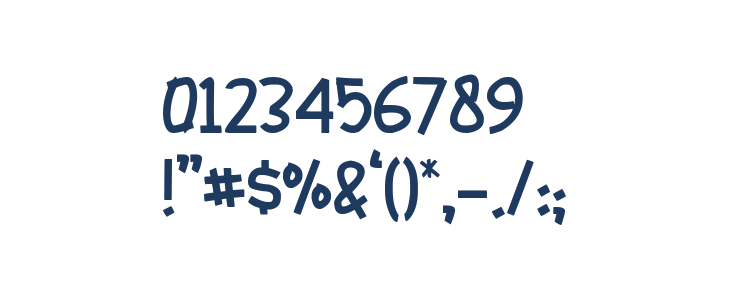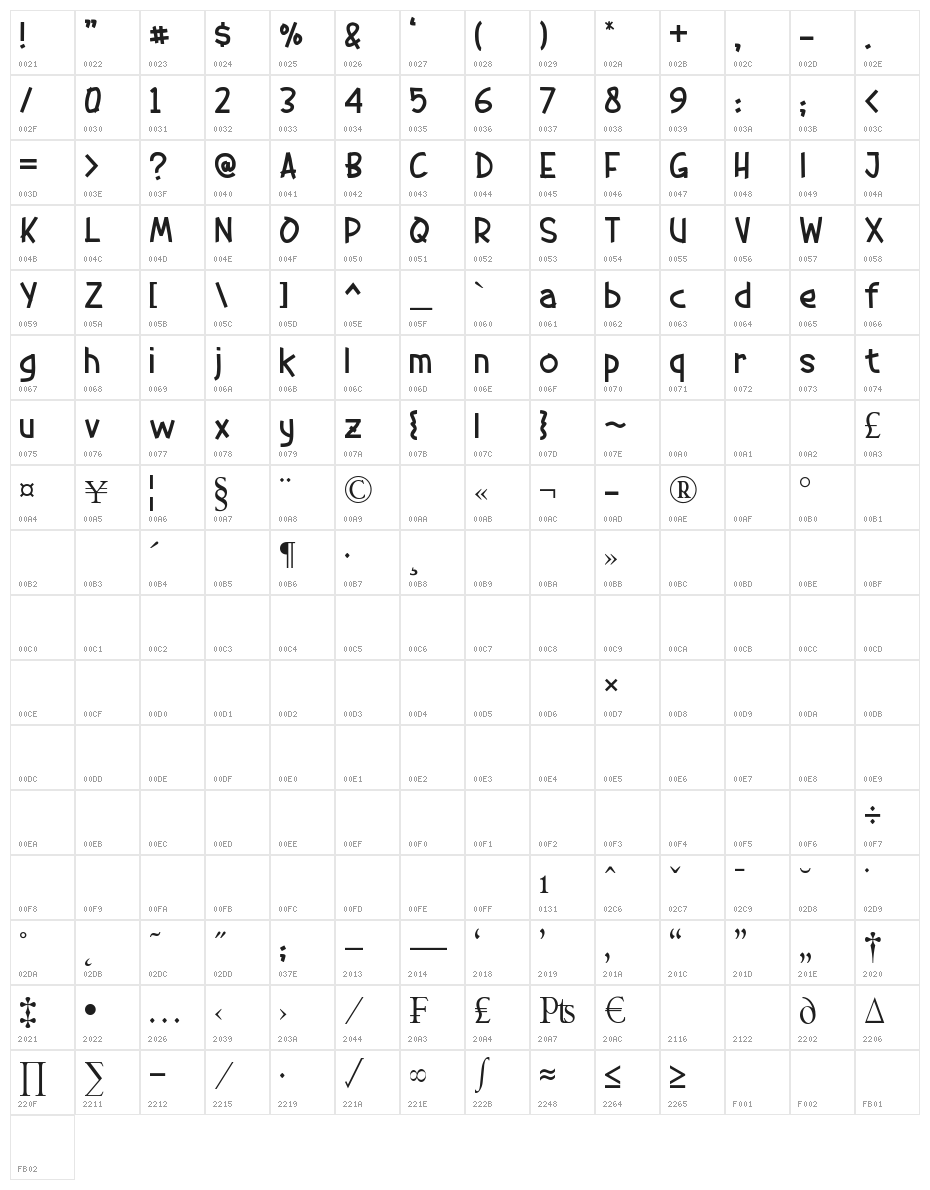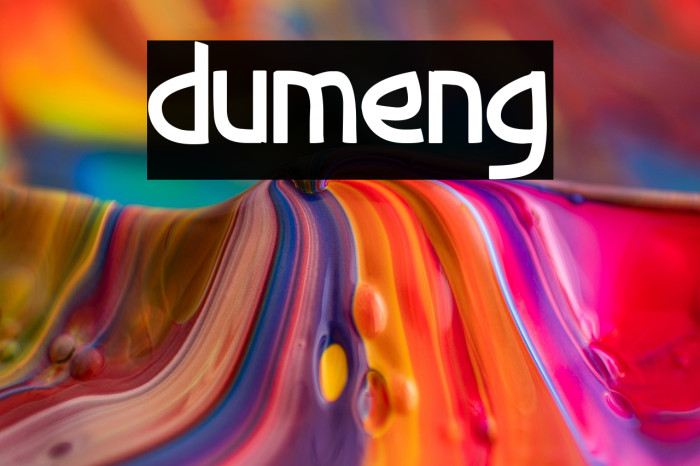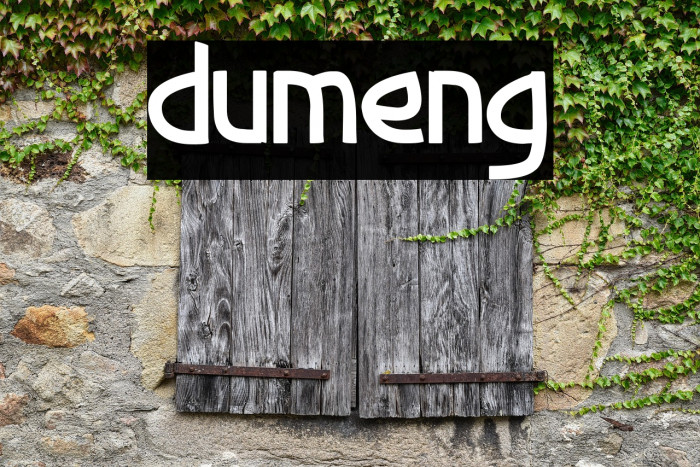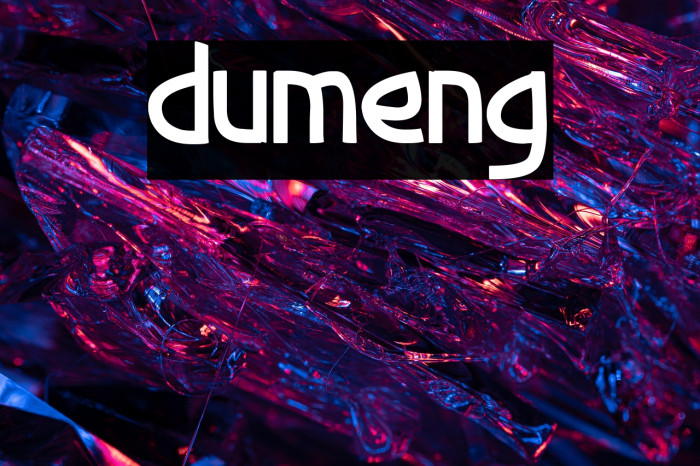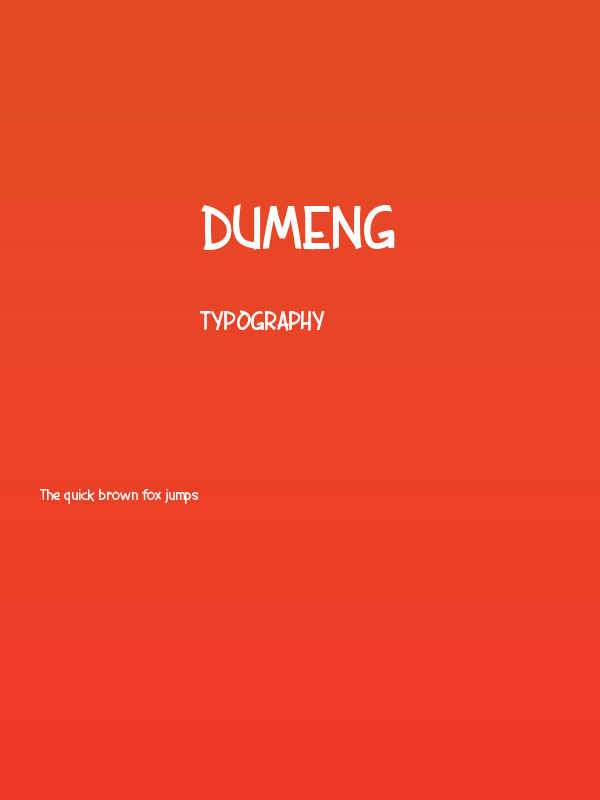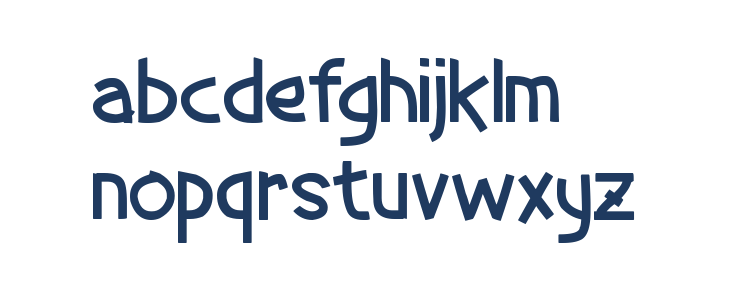
dumeng Font
dumeng Description
This font features a playful and bold style with a hand-drawn appearance. The characters are slightly irregular, giving it a whimsical and informal feel. The uppercase letters are tall and slightly narrow, while the lowercase letters maintain a consistent height, contributing to a cohesive look. The numerals are bold and easily readable, matching the overall style of the alphabet. Special characters are designed with the same playful aesthetic, making this font suitable for creative and casual applications. The strokes are consistent in thickness, providing a uniform appearance across all characters.
| Proposed Projects | Ideal for children's books, comic strips, playful branding, and creative posters. |